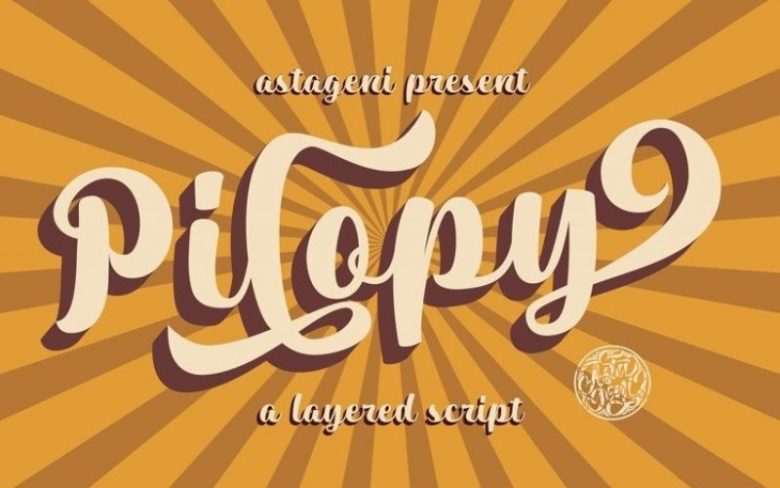
Pilopy Script Font Free
Pilopy is a Bold Script Font, inspired by lettering in 60-80n era,
Pilopy also comes with extra Extruded Font version. So you won’t need extra effort for create an extrude effect for this font. This mean it will saves your time.
It will elevate a wide range of design projects to the highest level, be it branding, headings, logos, labels, and much more!